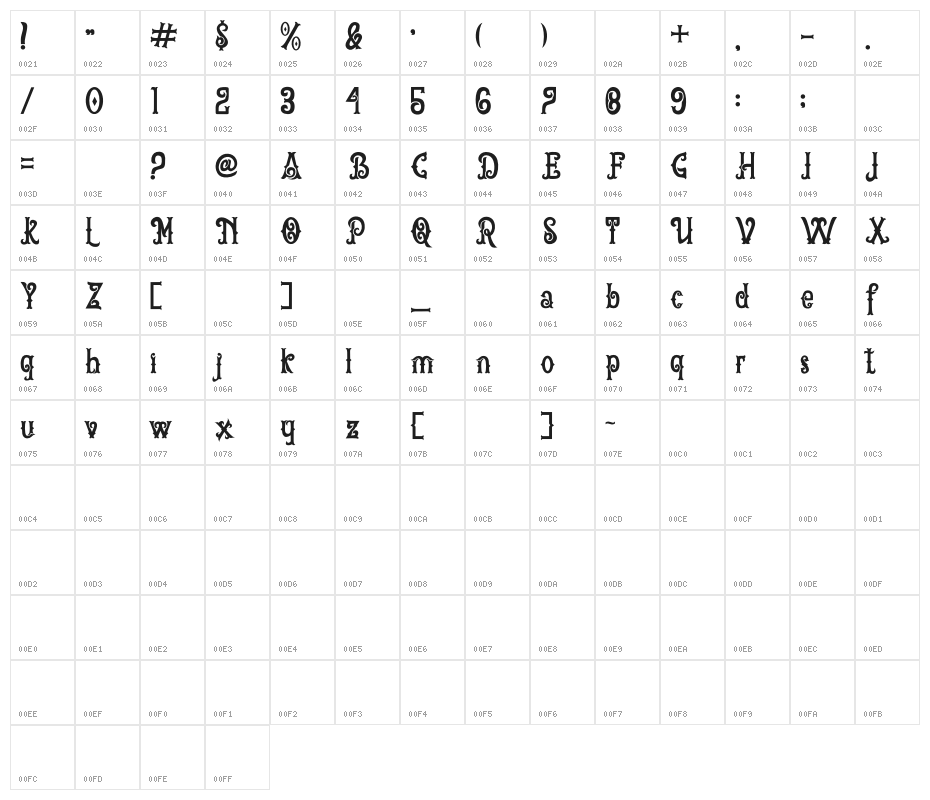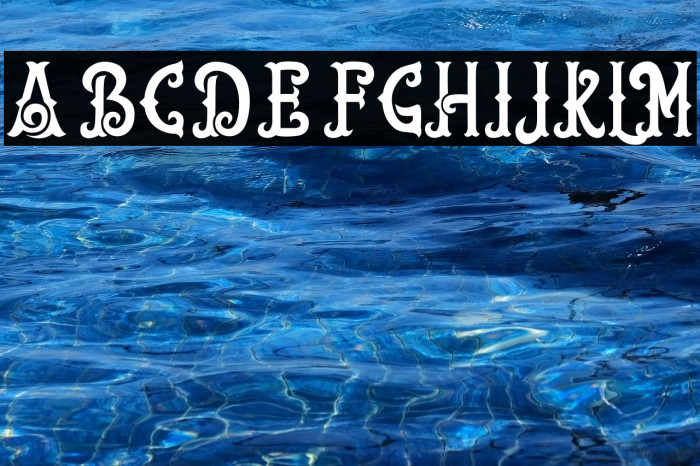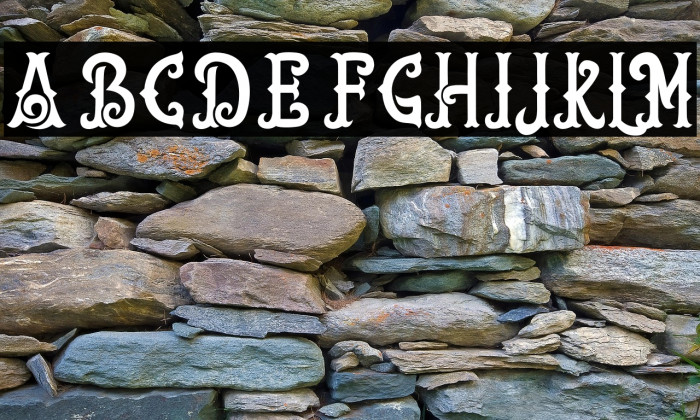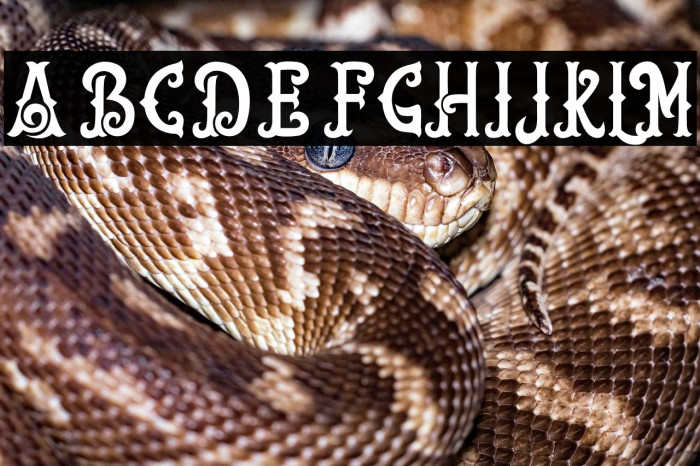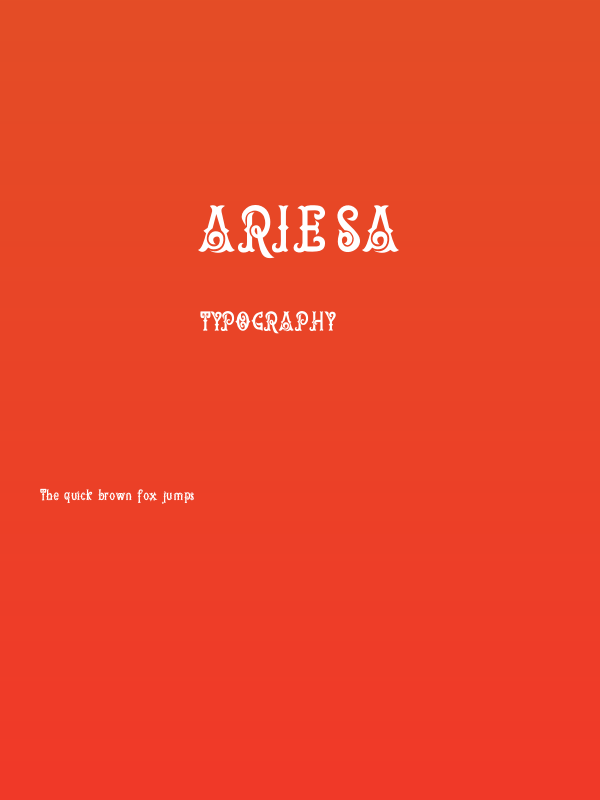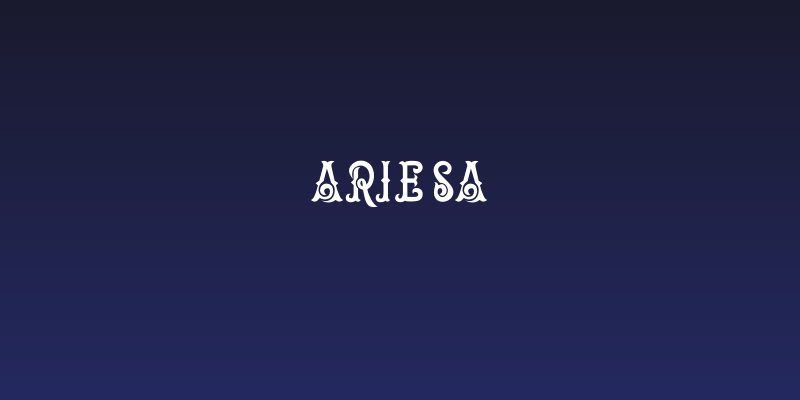
AriesA Font
AriesA Description
This font features a bold and decorative style with intricate details and flourishes that give it a unique and artistic appearance. The characters are designed with a high level of ornamentation, making them stand out with their elaborate curves and edges. The uppercase letters are particularly striking, with a gothic influence that adds a sense of drama and elegance. The lowercase letters maintain the decorative theme, ensuring consistency throughout the typeface. Numbers and special characters are equally ornate, making this font suitable for creative and expressive design projects.
| Proposed Projects | Ideal for use in posters, album covers, branding for creative industries, and any project requiring a dramatic and artistic flair. |